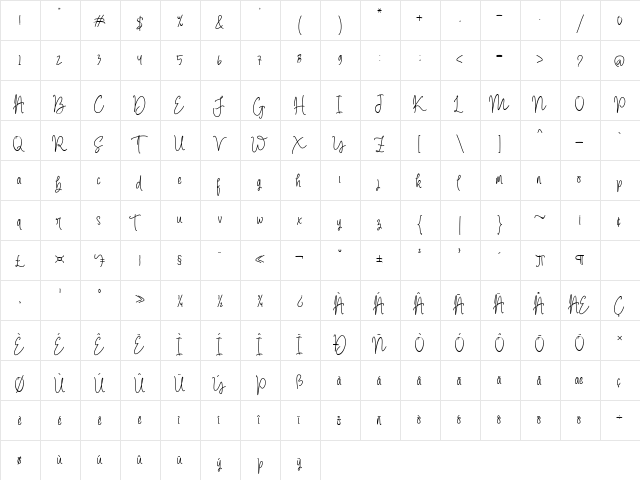
The Amstrong Regular
| Foundry | Atjcloth |
| Designer | Atjcloth |
Design Context for The Amstrong Typeface
The Amstrong is a composed and adaptable typeface that performs quietly and consistently across a wide range of design contexts.